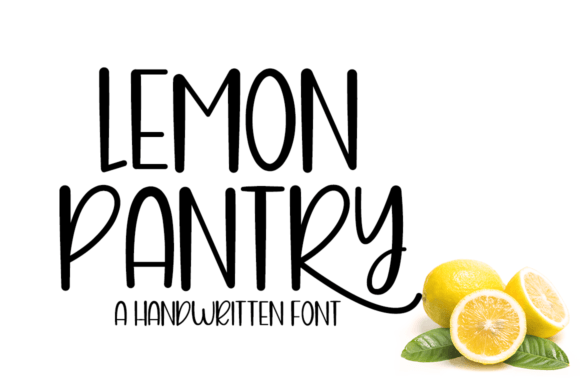
Looking for a new script font that is full of personality and charm? Look no further than Lemon Pantry Font, the latest creation by AM Designs! With its fun and whimsical style, this font is perfect for adding a bit of flair to any project.
Whether you are designing a logo, creating a social media post, or working on a scrapbooking project, Lemon Pantry Font is sure to make your work stand out. Its unique handwritten style and quirky design are sure to catch the eye of anyone who sees it.
One of the most notable features of Lemon Pantry Font is its single path design, which makes it ideal for use with Cricut machines. If you love crafting and DIY projects, this font is a must-have in your collection.
But Lemon Pantry Font isn't just for crafters and designers. Its playful style and upbeat personality make it a great choice for anyone looking to add a bit of fun to their communications. Use it for invitations, greeting cards, or anything else that needs a touch of whimsy.